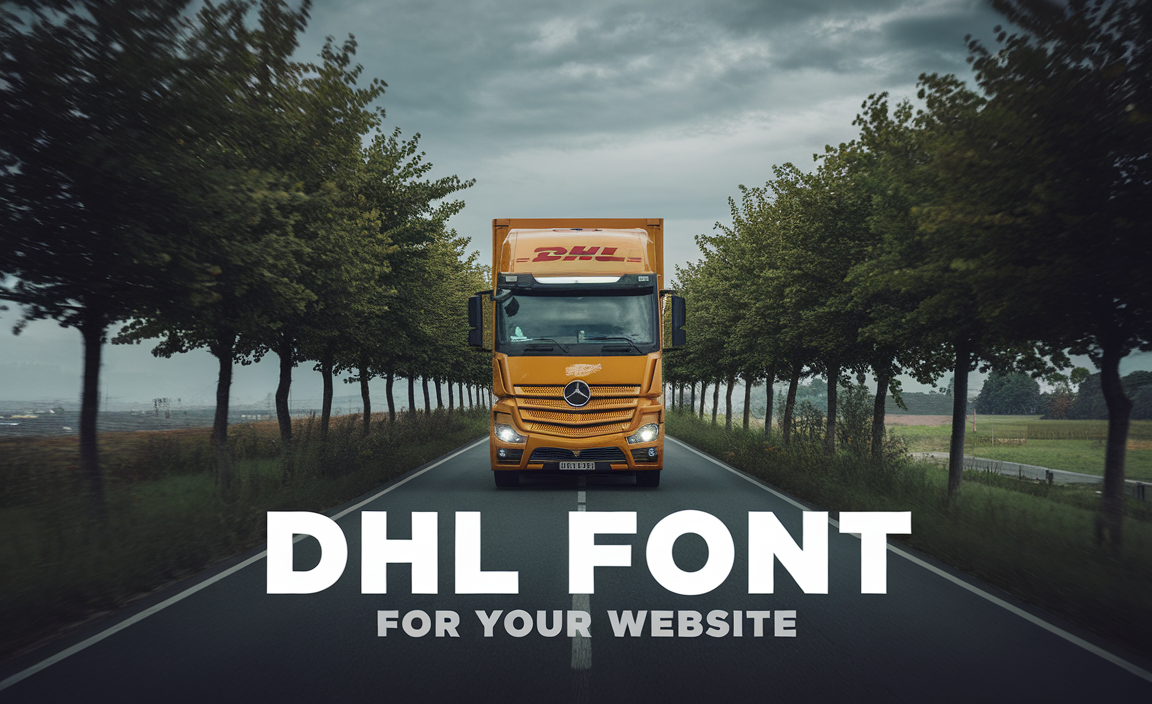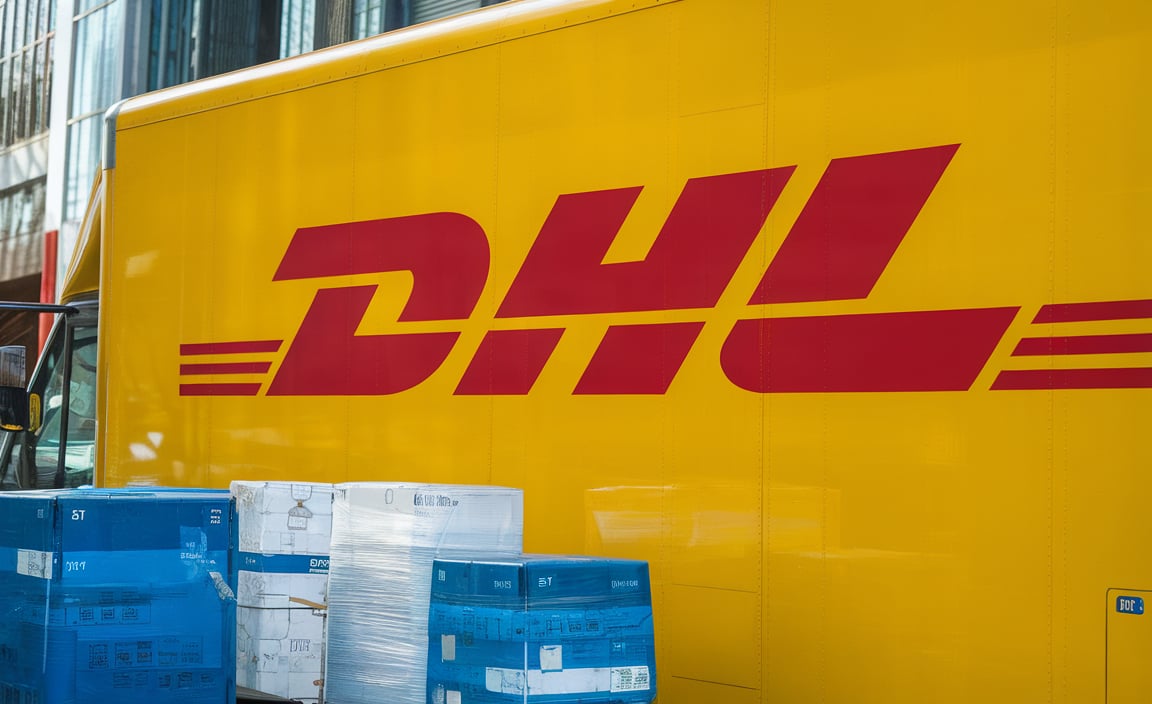
When designing a website, the choice of font can significantly impact user experience, customer satisfaction, and brand alignment. Incorporating the DHL font style, inspired by the DHL Group, can lend a professional and recognizable touch to your website. This guide delves into the essentials of utilizing the DHL font for your website, including technologies, privacy concerns, and functional optimization.
DHL Font Statistics and Insights
The DHL font, Delivery, was developed between 2018 and 2021 by Dalton Maag, a renowned typeface design agency. This font supports over 120 languages, including scripts like Arabic, Cyrillic, Greek, and Latin (with Vietnamese extensions). The italicized and bold style of the font reflects speed, efficiency, and movement, aligning with DHL’s core values in logistics and delivery.
Exclusively designed for the DHL Group, the font is utilized across platforms like:
- DHL Express,
- DHL eCommerce,
- Deutsche Post, and
- DHL Global Forwarding.
Since adopting the Delivery font, DHL reported enhanced brand consistency and better customer recognition globally, thanks to a unified typeface.
Why Choose the DHL Font Style?
The DHL Group has established a global identity with its bold, italicized font, used across DHL Express, DHL eCommerce, and Deutsche Post platforms. By integrating a similar font style, websites can achieve:
- Brand Consistency: Align with global logistics and eCommerce standards.
- Enhanced Readability: A clean and professional look enhances the user experience.
- Recognition: Familiar fonts resonate with audiences who trust DHL services.
- Cross-Media Application:
Used in everything from websites to aviation simulators, the font ensures visual cohesion across digital and physical media. The font was designed to meet accessibility standards, ensuring legibility for diverse user groups, including those with vision impairments.
The font is optimized for various digital platforms, from smartphone apps to vehicle branding, ensuring clear readability across devices. Switching to the Delivery font helped DHL streamline its branding efforts and reduced font-related licensing costs across its vast operational network.
DHL’s font is now a globally recognized symbol, reinforcing trust and reliability in over 220 countries and territories.
Boosting Customer Satisfaction with Custom Fonts
Custom fonts inspired by the DHL style can enhance customer satisfaction by improving readability and adding a touch of professionalism. Align your fonts with targeted branding efforts:
- Optimize fonts for global forwarding and translation, ensuring accessibility for international users in regions like New Zealand and the United Kingdom.
Final Thoughts
Integrating a DHL-inspired font into your website can elevate your brand and user experience while maintaining professionalism. By using technologies like functional cookies and respecting privacy preferences, your site can deliver a smooth, secure experience to visitors. Align your design choices with DHL services’ principles of reliability and innovation for a globally trusted website aesthetic.
What is the DHL font?
The DHL font is a bold, italicized sans-serif typeface designed to represent speed and efficiency. It’s used exclusively by the DHL Group for branding.
Can I use the DHL font on my website?
Is the DHL font mobile-friendly?
Yes, its clean and bold design makes it suitable for all devices. Ensure your site’s CSS scales fonts for mobile users.